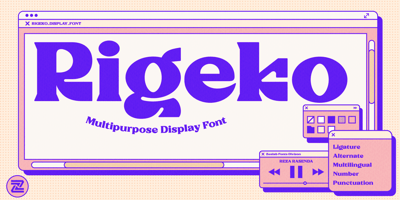
Rigeko Font Family was designed by Reza Rasenda and published by Zealab Fonts Division. Rigeko contains 1 styles and family package options. Rigeko is multipurpose and unique display font, you can use it in modern and vintage design.This font will suitable for any project, like branding, print template, logo and etc.Rigeko include uppercase and lowercase, ligature and alternate style, and also multilingual support.